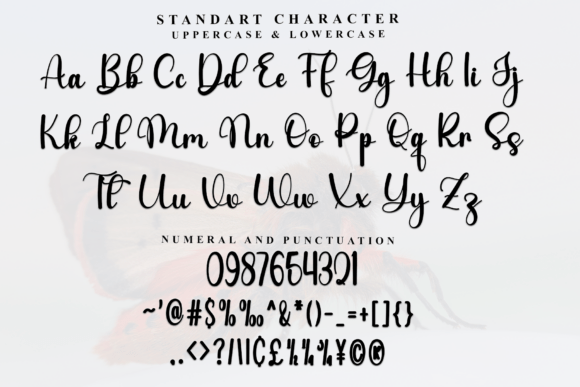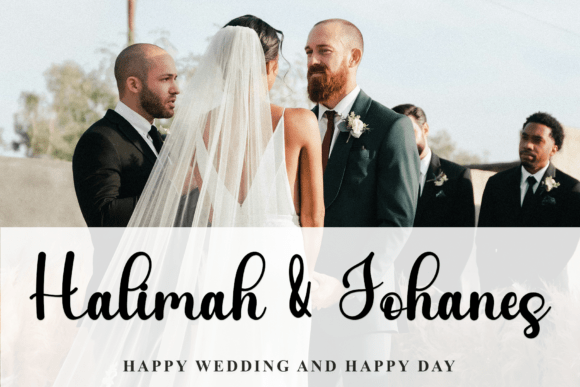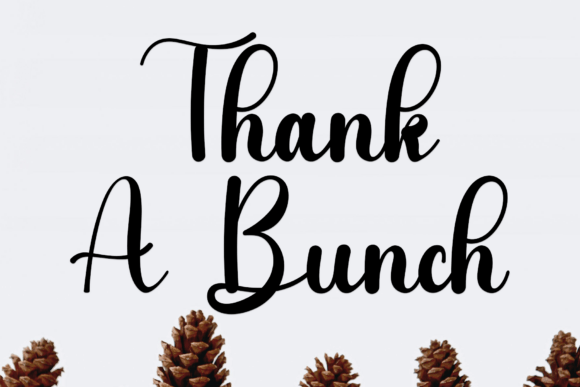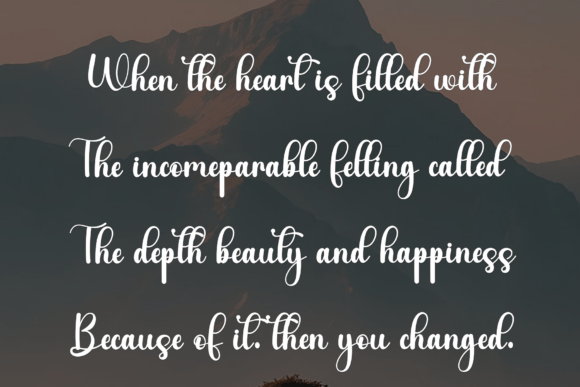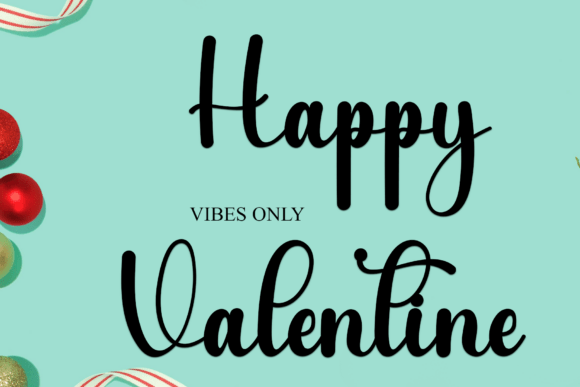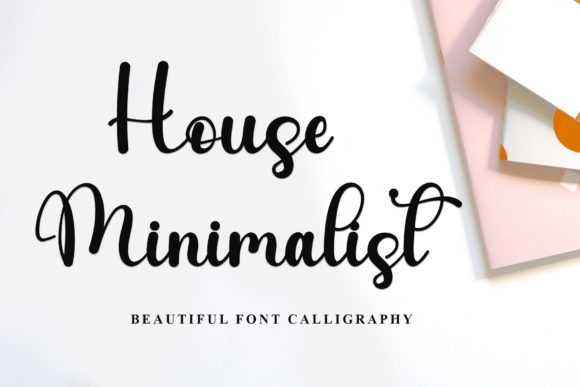
Introduction to Highland Mountain Font
Highland Mountain is a casual and creative font that exudes warmth and friendliness.
Key Features of Highland Mountain Font
Why Choose Highland Mountain Font?
Highland Mountain Font offers exceptional quality and versatility, making it a valuable addition to your design toolkit. Whether you’re creating for personal projects or commercial use, Highland Mountain Font delivers professional results.